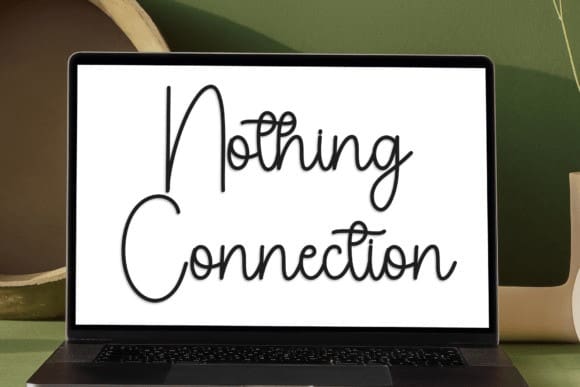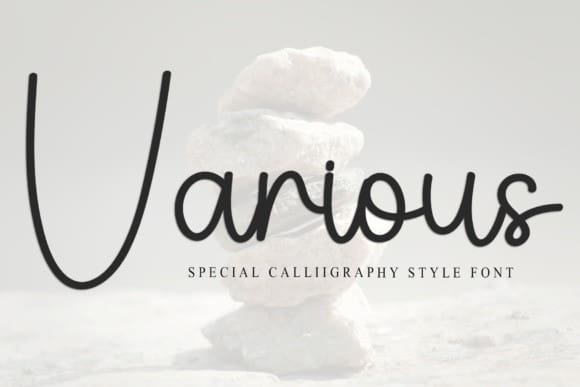
Various Font
Various Font is a beautiful script font with elegant, flowing letters. It looks like handwriting and is perfect for creative designs, invitations, or anything that needs a classy, personal touch.